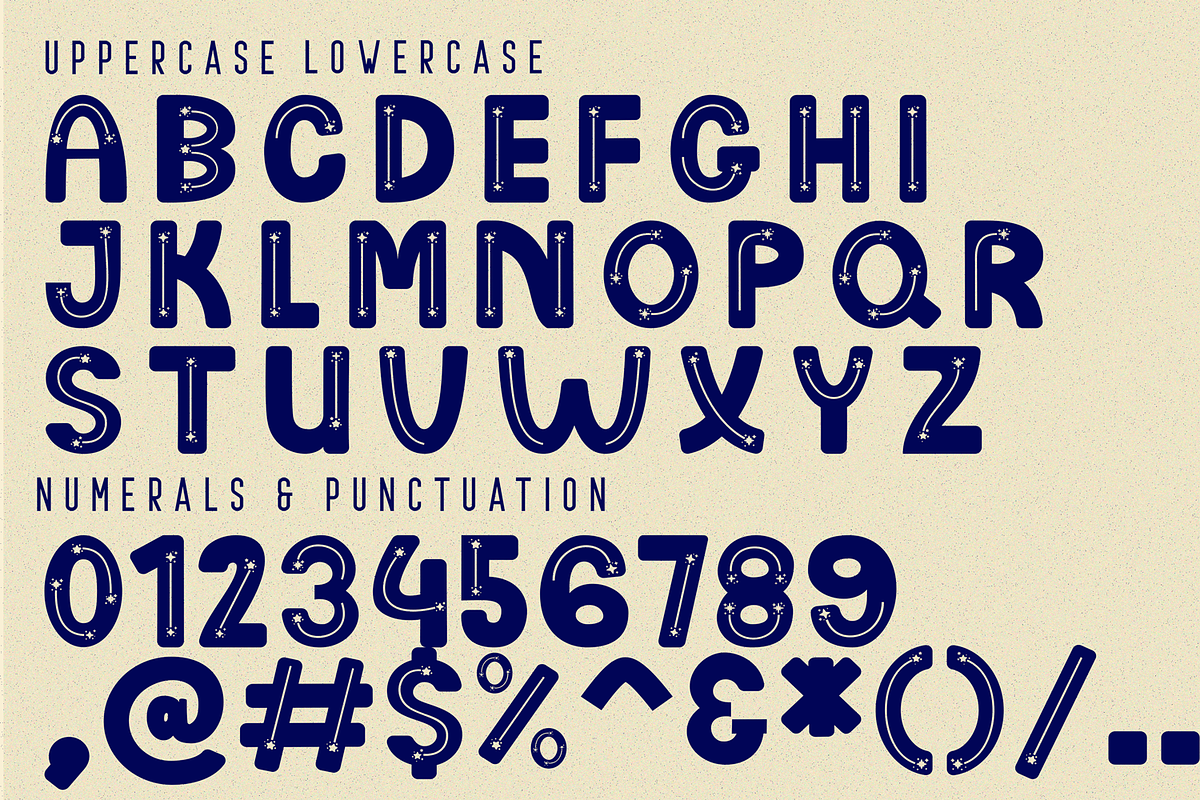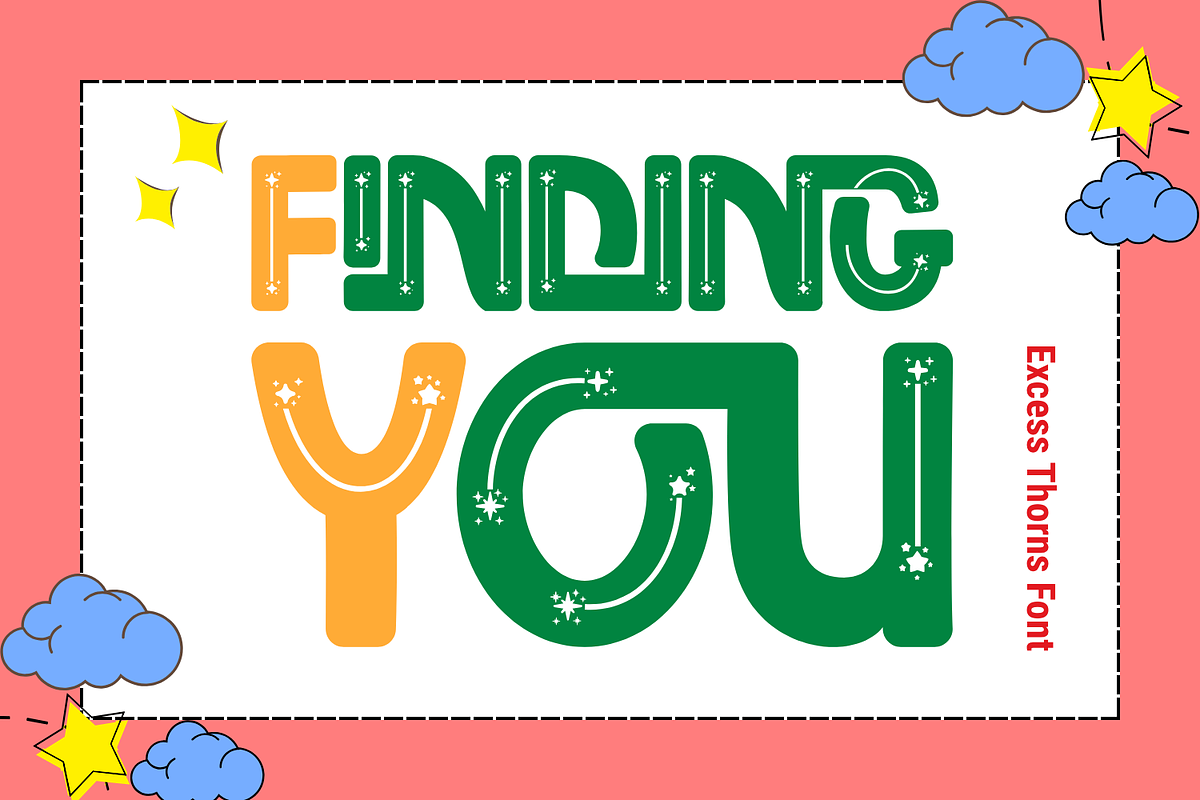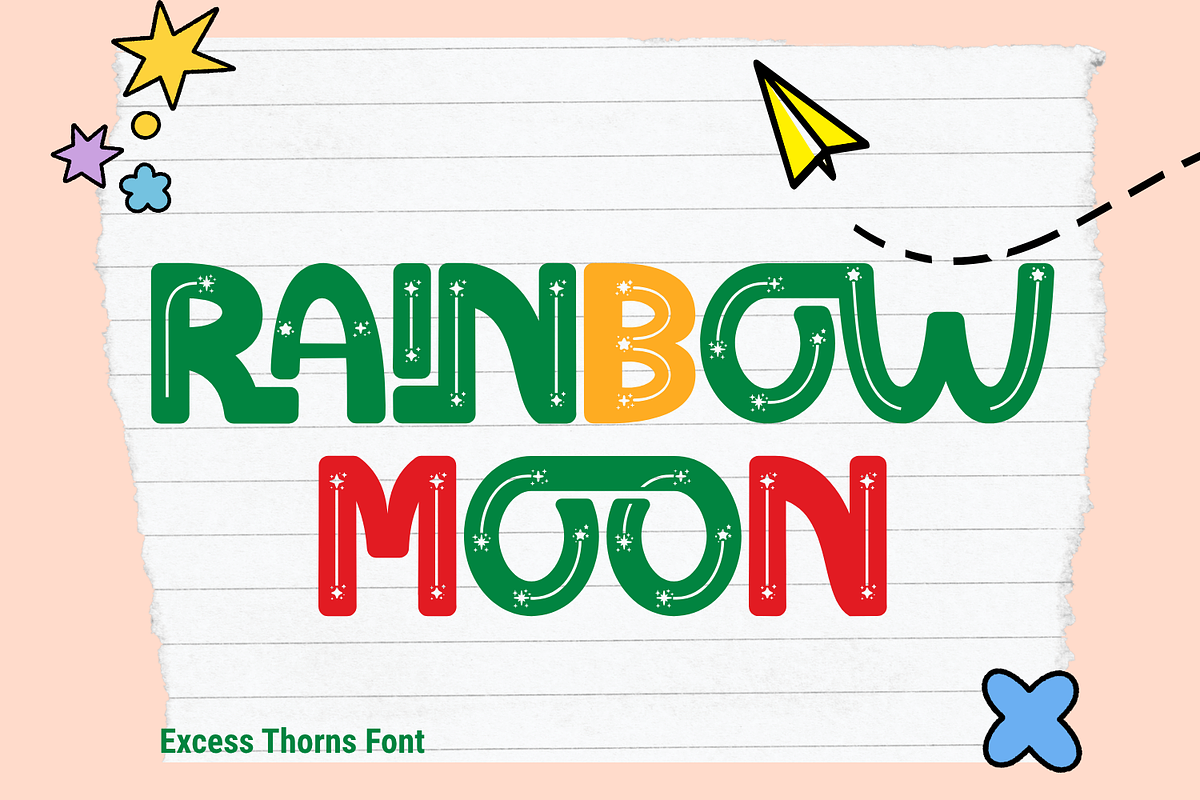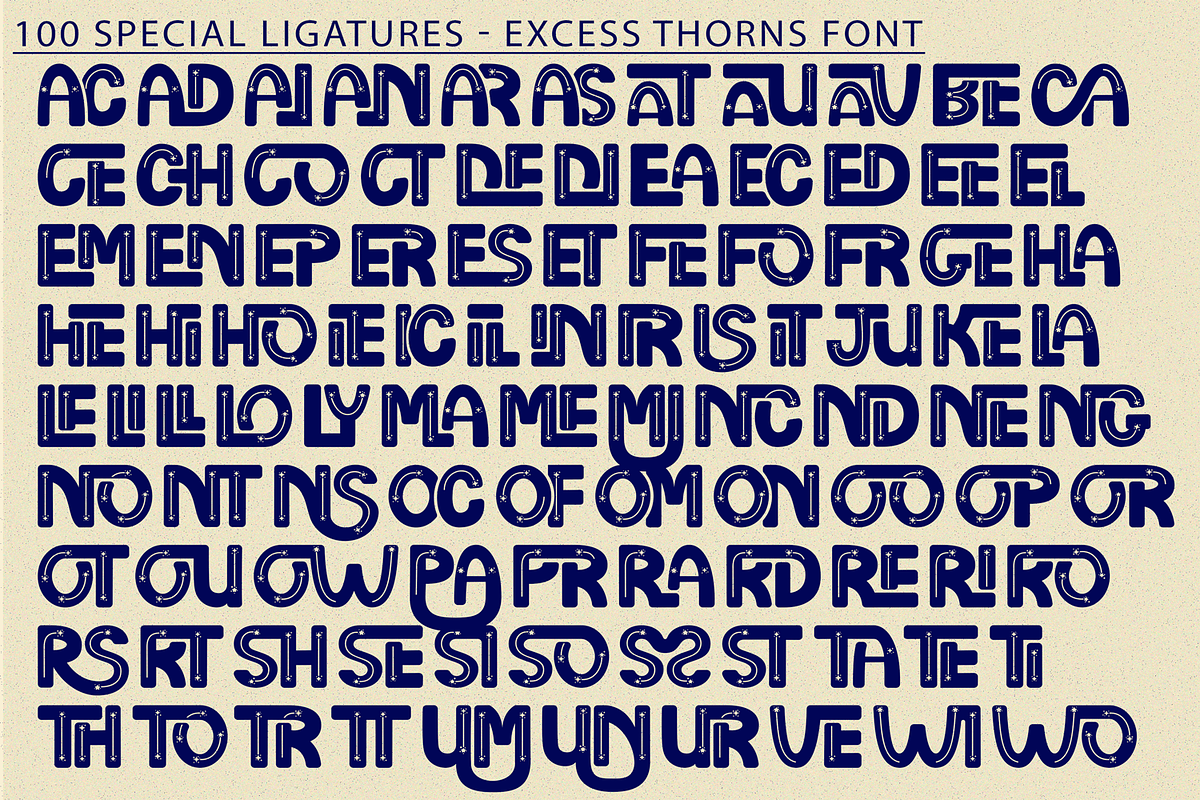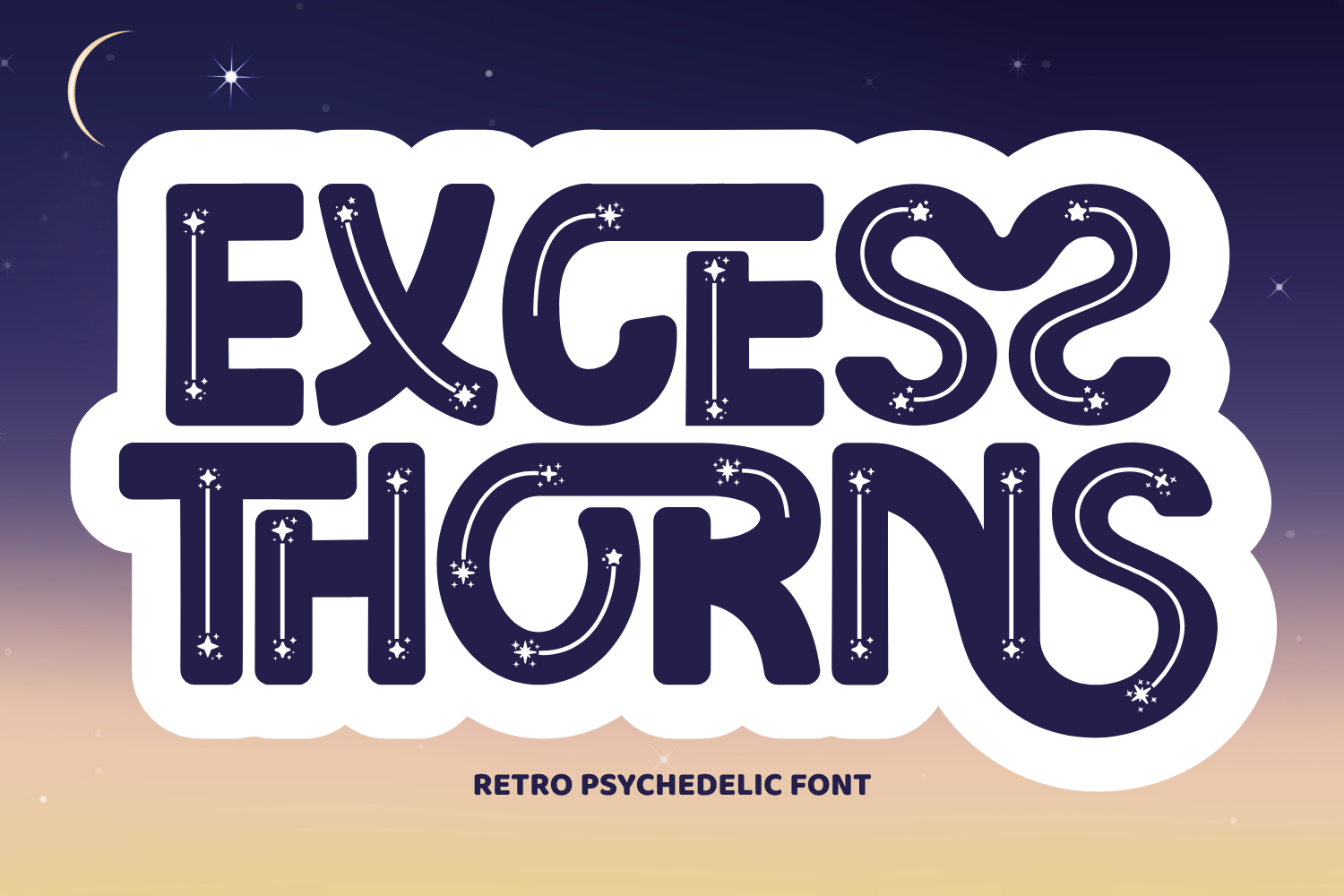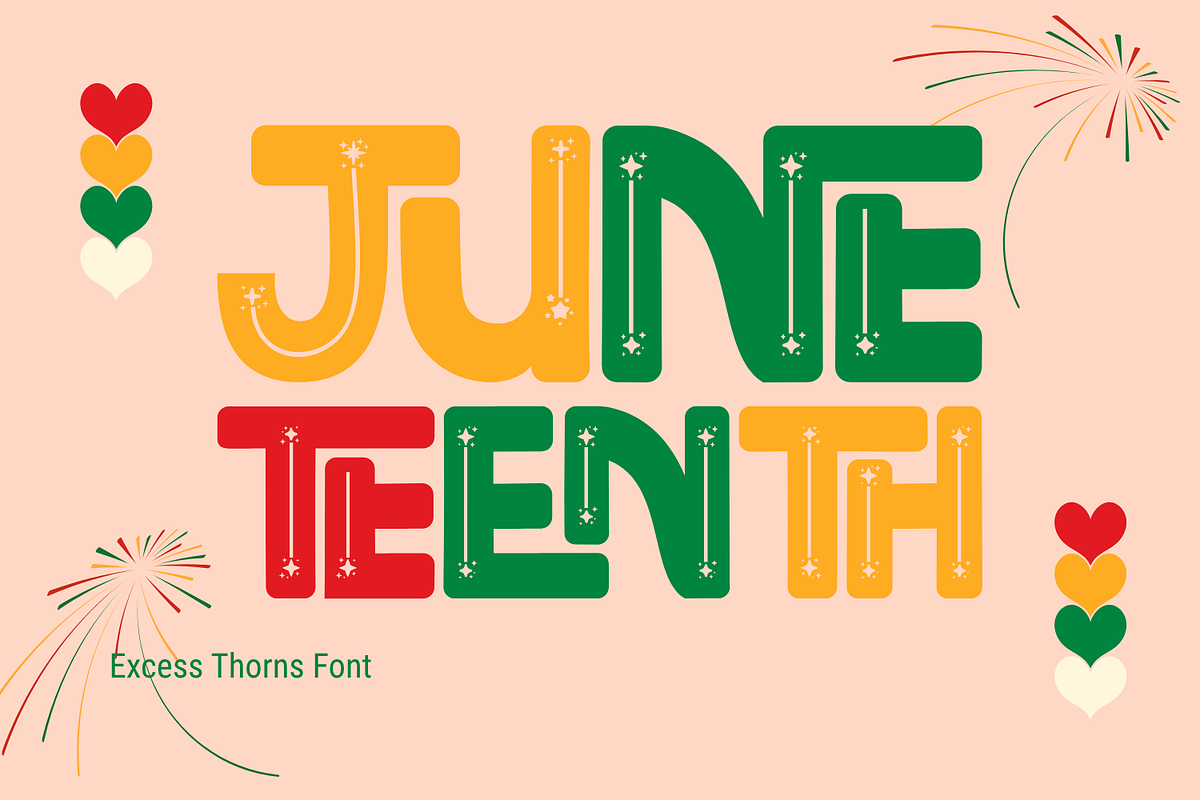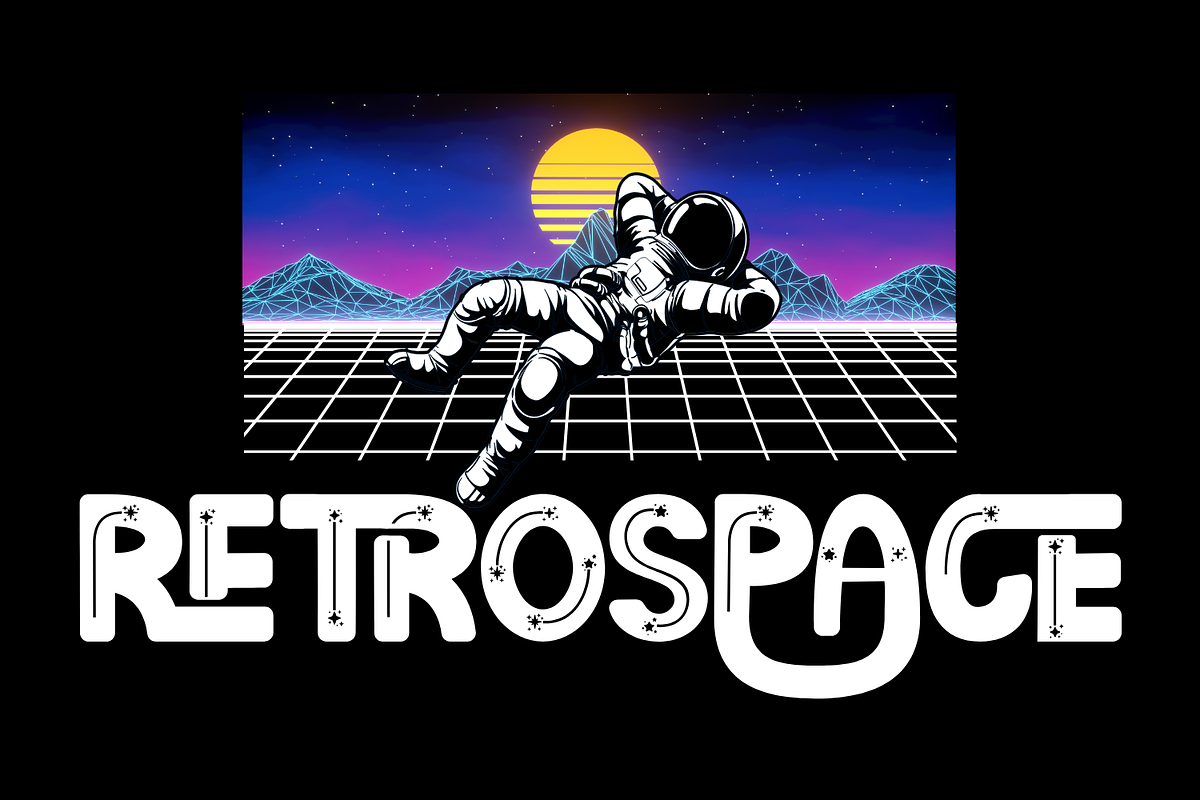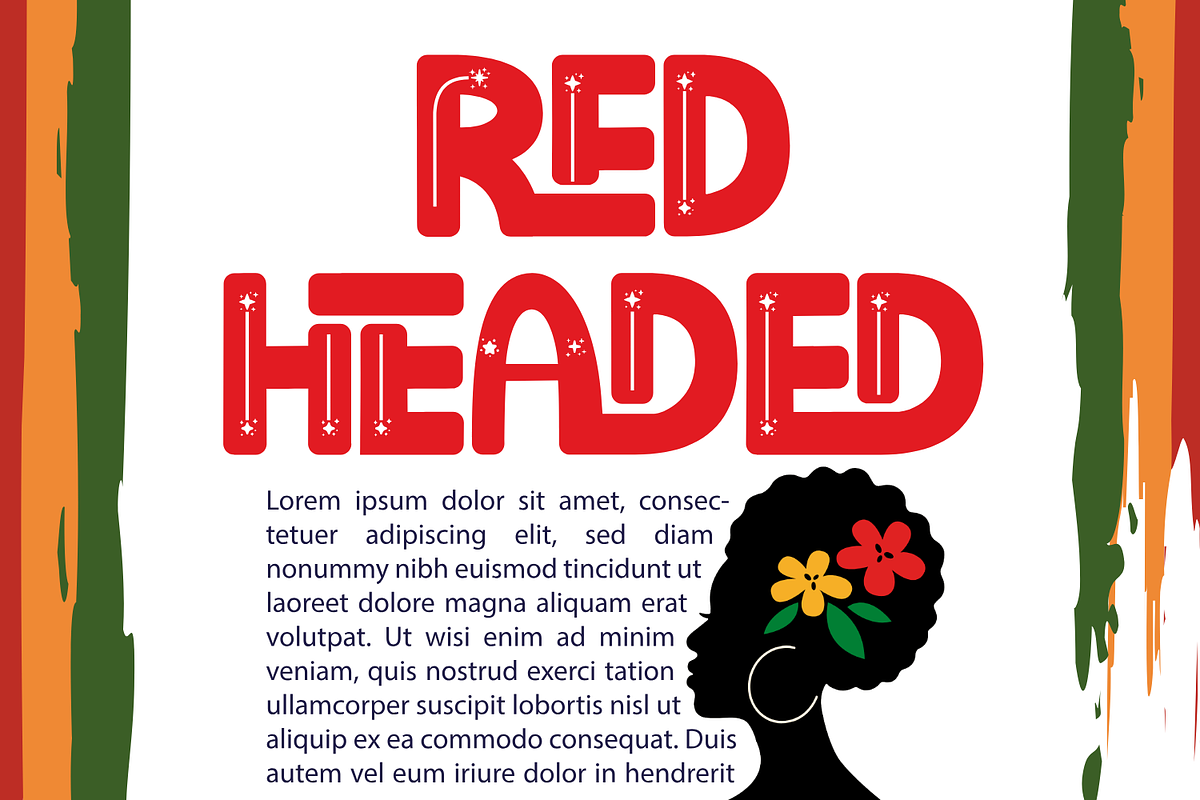
Excess Thorns - Playful Font
Excess Thorns - Playful Font – Cosmic Bubble Display Font, dreamy display typeface inspired by retro-futuristic design and cosmic aesthetics. With its soft curves, bubbly proportions, and magical star-studded inner strokes, this font is designed to bring wonder and joy to your creative work. Whether you're designing a book cover, fashion label, children's product, or a whimsical poster, Excess Thorns adds charm, uniqueness, and a sprinkle of stardust to every letter.
- Uppercase Letters
- 100+ Special Ligatures for added flair
- Multilingual Support with Accented Characters
✍️ About 100 ligatures combined with Stylistic Alternates Font:
AC AD AL AN AR AS AT AU AV BE CA CE CH CO CT DE DI EA EC ED EE EL EM EN EP ER ES ET FE FO FR GE HA HE HI HO IE IC IL IN IO IR IS IT JU KE LA LE LI LL LO LY MA ME MI NC ND NE NG NO NT NS OC OF OM ON OO OP OR OT OU OW PA PR RA RD RE RI RO RS RT SE SH SI SO SS ST TA TE TH TI TO TR TT UM UN UR VE WI WO